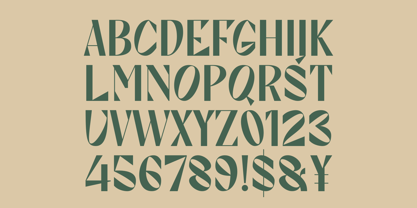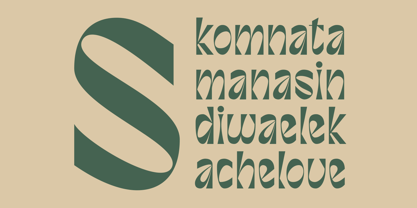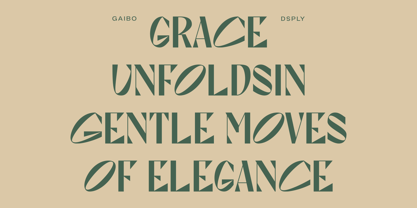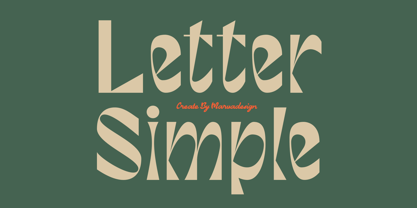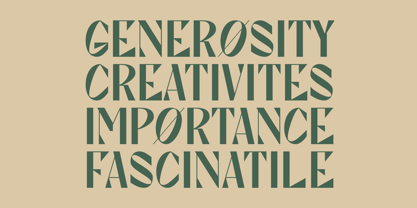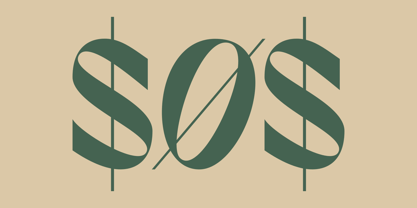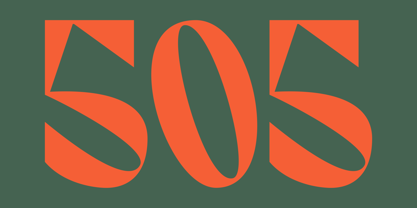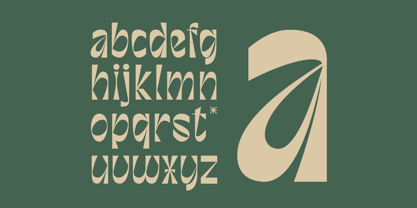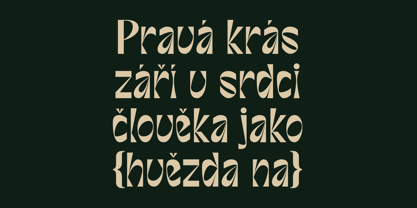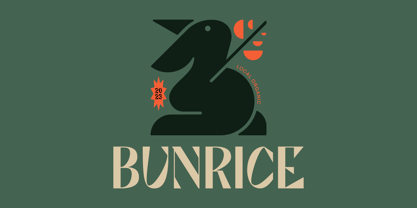
Gaibo
by Marvadesign
The Gaibo Font Family was designed by Febrie Setiawan and published by Marvadesign. Gaibo contains 1 styles. More about this family
Gaibo a one of a kind display sans typeface designed to make every word stand out. With its dynamic contrast of flowing curves and sharp geometric cuts, Gaibo delivers a modern yet artistic aesthetic that feels both playful and sophisticated. Perfect for logos, posters, fashion branding, packaging, magazine covers, and social media visuals, this typeface brings a fresh statement wherever it’s used. Its uppercase letters exude confidence and style, while the lowercase forms carry a softer, expressive charm, allowing you to mix and match for endless design possibilities.